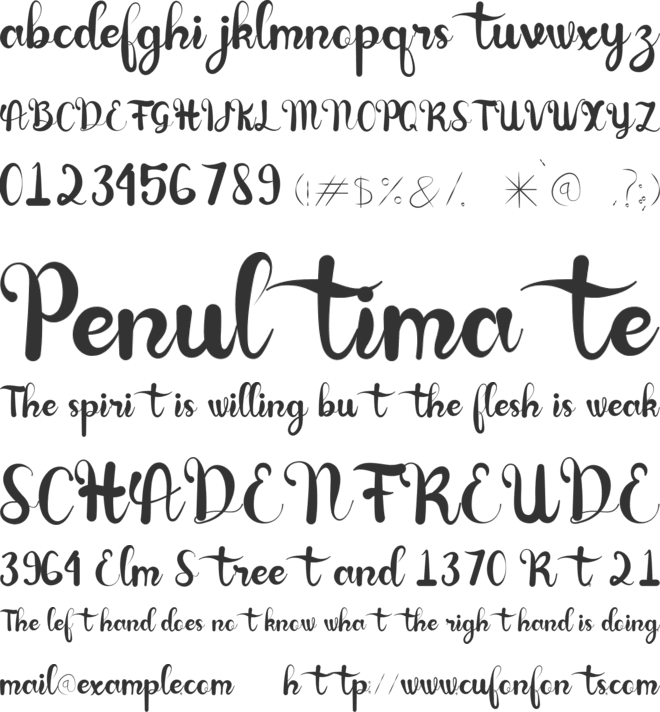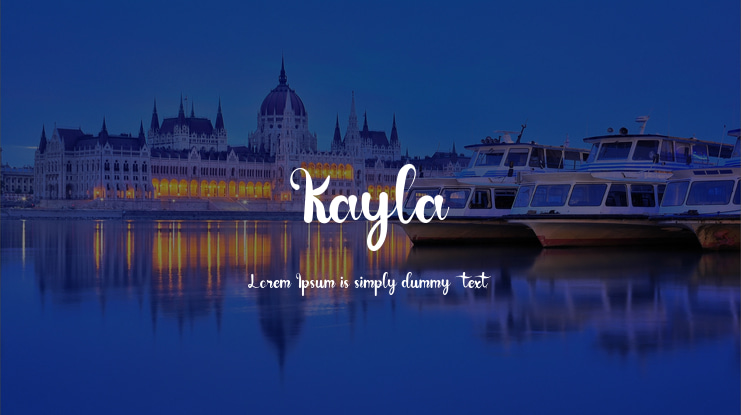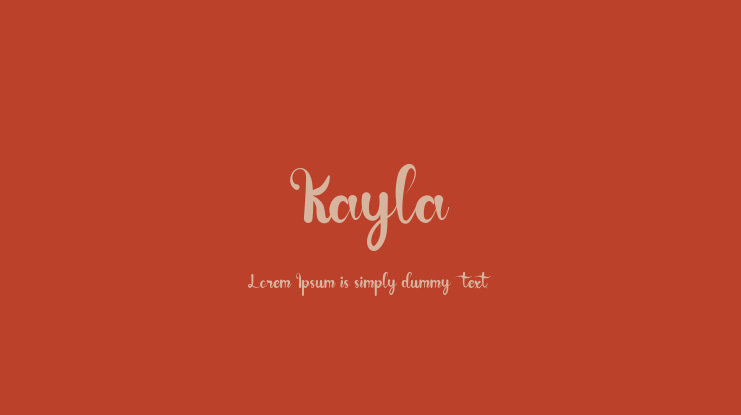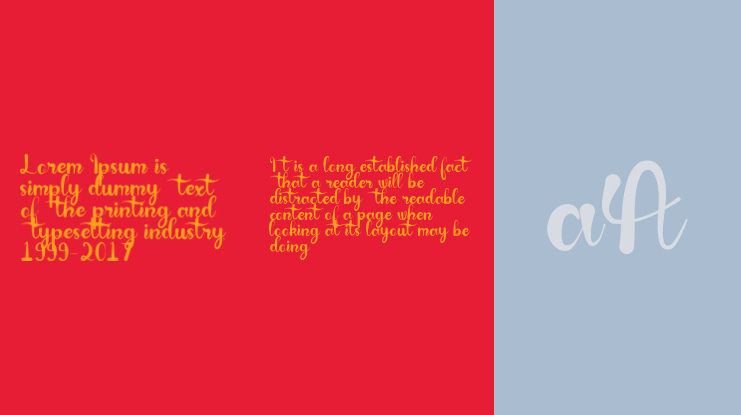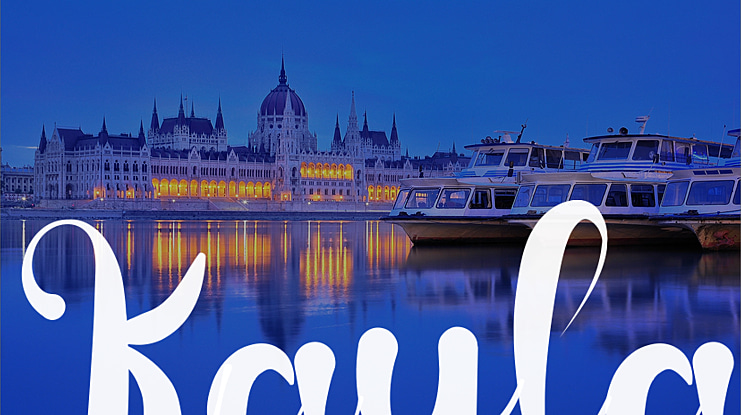
Kayla Font
Kayla is a sweet and delicate handwritten font. Dainty and joyful, this font will be ideal for writing wedding invitations, cards or any other design that may need a romantic, personalized touch! https://www.creativefabrica.com/product/kayla-10/ref/760893/